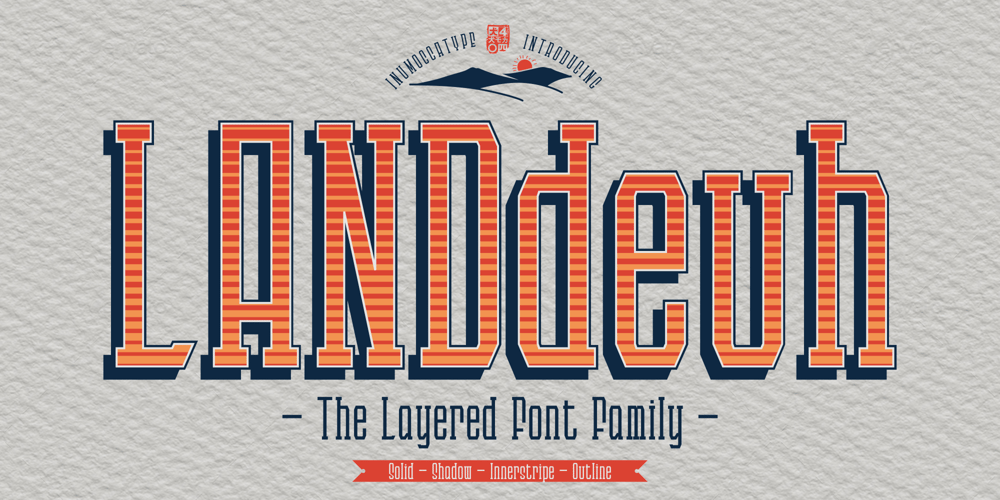
Landeuh Font Family was designed by Inu Mocca and published by Inumocca. Landeuh contains 4 styles and family package options. Landeuh Typeface, The LAYERED font Family with 4 variants, the variants are combine with different colors, its EASY to useenjoy with your project -Unique glyphs-Multilingual Characters-UPPERCASE-Lowercase-Numeric-Symbol-Punctuation Characterinumocca_type